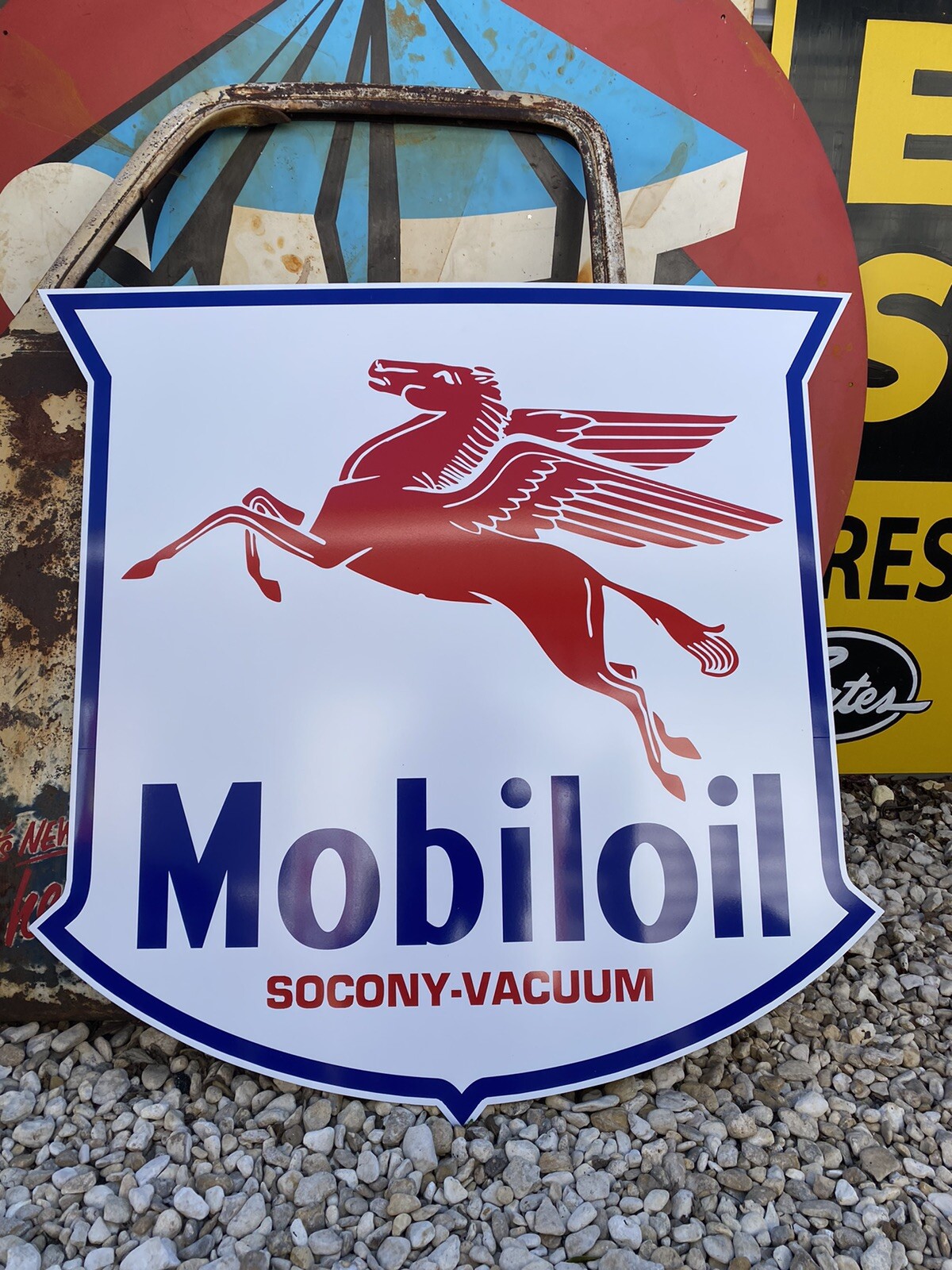
Mobil Oil Font . The closest font you can get for the mobil oil logo is itc avant garde gothic bold font. Mobil was an american oil company founded in 1911 and was merged with exxon in 1999 to. The mobil logo was designed in 1965 by chermayeff & geismar. Click here to buy itc avant garde gothic bold font. The “gargoyle” inscription was arched above the image, executed in. Mobil was an american oil company founded in 1911 and was merged with exxon in 1999 to form exxonmobil. It is a free font. Mobil font and mobil logo. Here, the letters of this logo resemble mobil font. What font does mobil oil use? The colours are red (pantone 485) and blue (pantone 293). The first logo for mobiloil was composed of a red gargoyle placed above the black serif lettering in a title case. Mobil is a global oil and gas company that was founded in.
Mobil font and mobil logo. The closest font you can get for the mobil oil logo is itc avant garde gothic bold font. Here, the letters of this logo resemble mobil font. The first logo for mobiloil was composed of a red gargoyle placed above the black serif lettering in a title case. The mobil logo was designed in 1965 by chermayeff & geismar. What font does mobil oil use? It is a free font. Mobil was an american oil company founded in 1911 and was merged with exxon in 1999 to form exxonmobil. Click here to buy itc avant garde gothic bold font. The colours are red (pantone 485) and blue (pantone 293).
Mobil Oil Font What font does mobil oil use? Mobil was an american oil company founded in 1911 and was merged with exxon in 1999 to form exxonmobil. Click here to buy itc avant garde gothic bold font. What font does mobil oil use? Mobil font and mobil logo. The mobil logo was designed in 1965 by chermayeff & geismar. The colours are red (pantone 485) and blue (pantone 293). Mobil was an american oil company founded in 1911 and was merged with exxon in 1999 to. Here, the letters of this logo resemble mobil font. The first logo for mobiloil was composed of a red gargoyle placed above the black serif lettering in a title case. The closest font you can get for the mobil oil logo is itc avant garde gothic bold font. The “gargoyle” inscription was arched above the image, executed in. Mobil is a global oil and gas company that was founded in. It is a free font.
Mobil logo ReadyMade Best Quality Logos For Sale Only 3 LogoPik Mobil Oil Font Click here to buy itc avant garde gothic bold font. The colours are red (pantone 485) and blue (pantone 293). The first logo for mobiloil was composed of a red gargoyle placed above the black serif lettering in a title case. The closest font you can get for the mobil oil logo is itc avant garde gothic bold font. Here,. Mobil Oil Font.
Mobil Oil Company SingleSided Porcelain Sign at Indy 2023 as M225 Mobil Oil Font The colours are red (pantone 485) and blue (pantone 293). Mobil was an american oil company founded in 1911 and was merged with exxon in 1999 to. The “gargoyle” inscription was arched above the image, executed in. The first logo for mobiloil was composed of a red gargoyle placed above the black serif lettering in a title case. Here, the. Mobil Oil Font.
Free download ExxonMobil Logo Petroleum Chermayeff & Geismar & Haviv Mobil Oil Font Here, the letters of this logo resemble mobil font. It is a free font. Mobil font and mobil logo. The “gargoyle” inscription was arched above the image, executed in. The colours are red (pantone 485) and blue (pantone 293). What font does mobil oil use? The mobil logo was designed in 1965 by chermayeff & geismar. The closest font you. Mobil Oil Font.
Antique Vintage Old Style Mobil Oil Pegasus Service Station Sign Mobil Oil Font It is a free font. The “gargoyle” inscription was arched above the image, executed in. Mobil was an american oil company founded in 1911 and was merged with exxon in 1999 to. Mobil is a global oil and gas company that was founded in. Click here to buy itc avant garde gothic bold font. What font does mobil oil use?. Mobil Oil Font.
Mobil Oil Shop Line Urdu Font Calligraphy Free Download Urdu Calligraphy Mobil Oil Font Mobil was an american oil company founded in 1911 and was merged with exxon in 1999 to. Mobil is a global oil and gas company that was founded in. Mobil font and mobil logo. Here, the letters of this logo resemble mobil font. It is a free font. The first logo for mobiloil was composed of a red gargoyle placed. Mobil Oil Font.
Mobil Logo and symbol, meaning, history, PNG, brand Mobil Oil Font Here, the letters of this logo resemble mobil font. The first logo for mobiloil was composed of a red gargoyle placed above the black serif lettering in a title case. Click here to buy itc avant garde gothic bold font. Mobil was an american oil company founded in 1911 and was merged with exxon in 1999 to form exxonmobil. Mobil. Mobil Oil Font.
Mobil Oil Logo Mobil Oil Font Here, the letters of this logo resemble mobil font. The first logo for mobiloil was composed of a red gargoyle placed above the black serif lettering in a title case. Mobil was an american oil company founded in 1911 and was merged with exxon in 1999 to. The colours are red (pantone 485) and blue (pantone 293). The mobil logo. Mobil Oil Font.
Mobil 1 logo, mobil 1 exxonmobil aceite lubricante sintético, s móvil Mobil Oil Font The “gargoyle” inscription was arched above the image, executed in. Mobil was an american oil company founded in 1911 and was merged with exxon in 1999 to form exxonmobil. The closest font you can get for the mobil oil logo is itc avant garde gothic bold font. The colours are red (pantone 485) and blue (pantone 293). What font does. Mobil Oil Font.
Mobil 1 Racing oils logo PNG, vector file in (SVG, AI) formats Mobil Oil Font The colours are red (pantone 485) and blue (pantone 293). The “gargoyle” inscription was arched above the image, executed in. Click here to buy itc avant garde gothic bold font. The mobil logo was designed in 1965 by chermayeff & geismar. Here, the letters of this logo resemble mobil font. It is a free font. Mobil was an american oil. Mobil Oil Font.